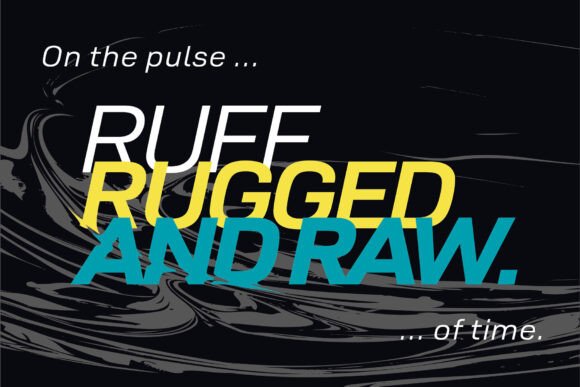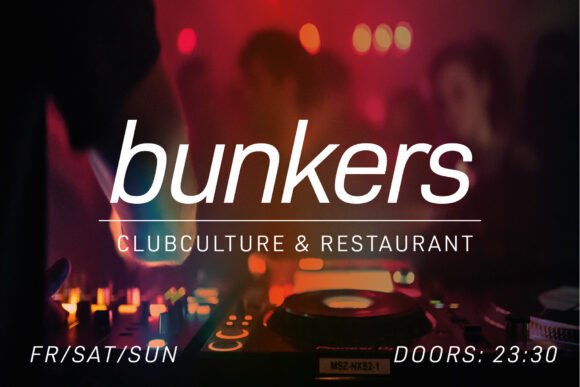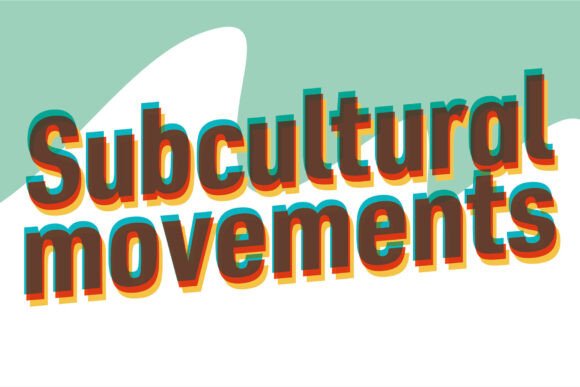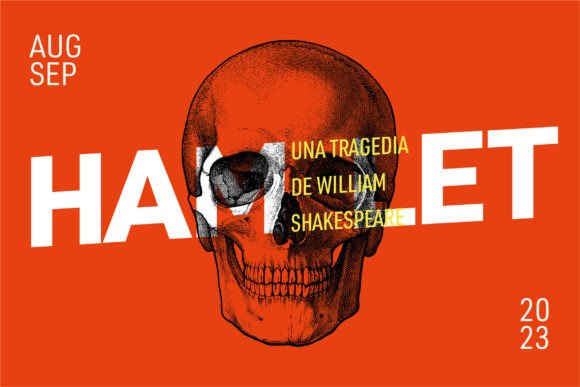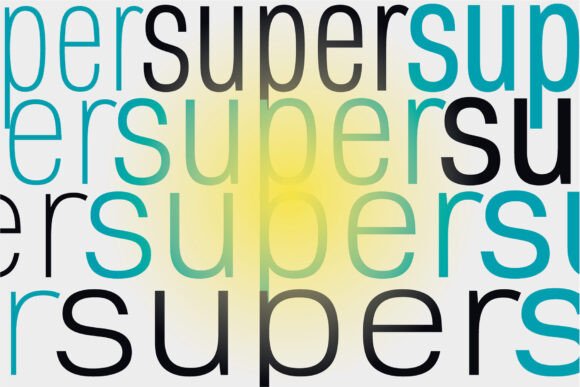
Introduction to Pulse Jp Font
Pulse JP is a superfamily consisting of 48 weights from compressed to expanded in 6 fat gradations each.
This opens up a wide range of designs and the possibility of combining typefaces of the same character in a wide variety of variants, or of being able to adapt typefaces to very different conditions The details of the individual typefaces are coordinated with each other with great precision and perfectly implemented in terms of craftsmanship.